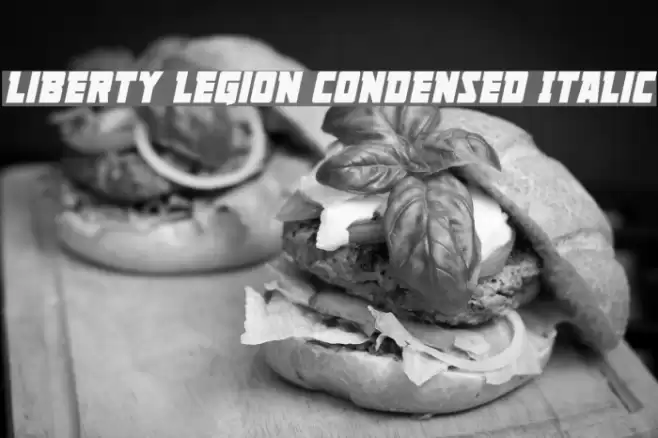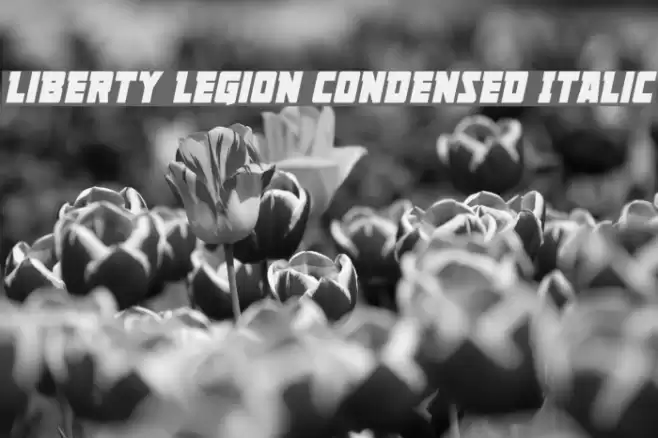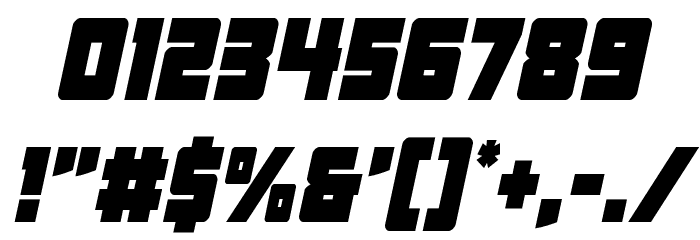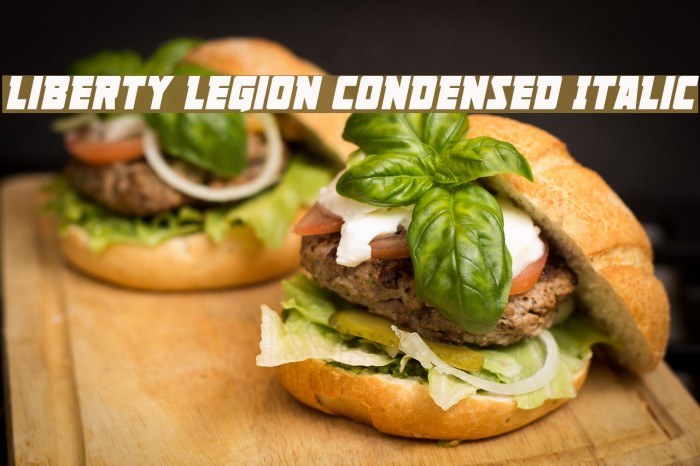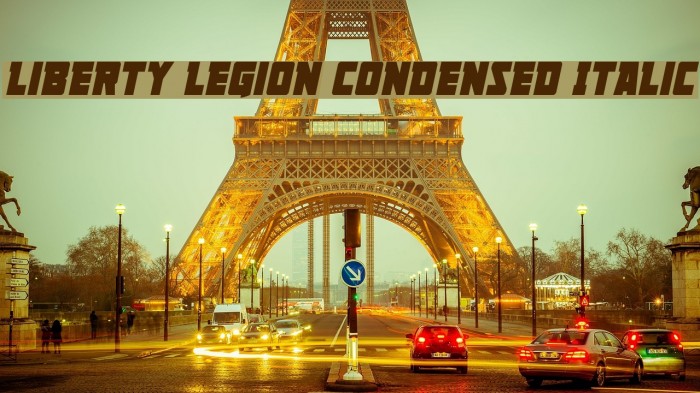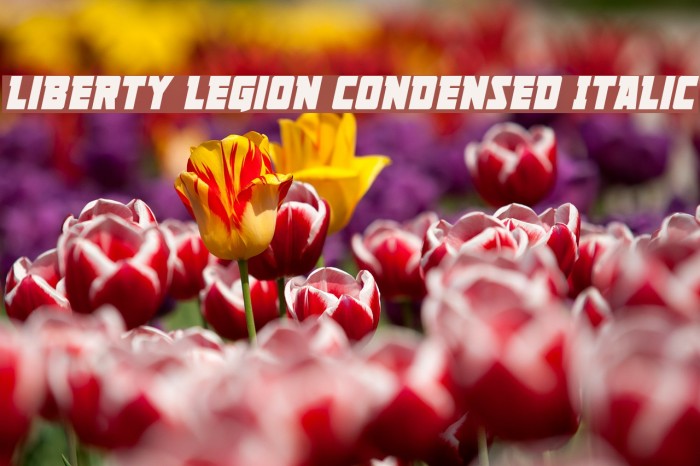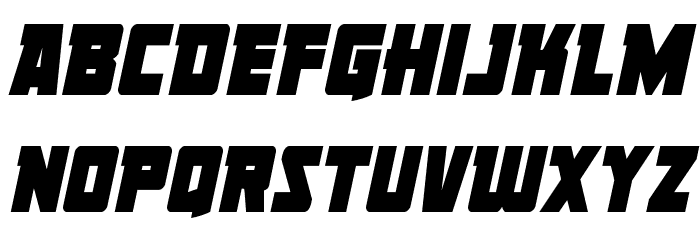
Liberty Legion Condensed Italic Font
Liberty Legion Condensed Italic Description
This font features a bold, condensed style with a strong italic slant, giving it a dynamic and energetic appearance. The characters are tightly spaced, enhancing the compact look. The strokes are thick and consistent, providing a high contrast that makes the text stand out. Its angular design and sharp edges contribute to a modern and assertive feel, making it suitable for impactful headlines and attention-grabbing designs. The uppercase and lowercase letters maintain a uniform width, ensuring a cohesive visual flow. The numerals and special characters are designed to match the boldness and style of the alphabet, offering a complete and versatile typeface.
A bold, condensed italic font with high contrast and dynamic style from Uncategorized fonts.
- Proposed Projects: Ideal for sports branding, action movie posters, dynamic advertisements, and bold headlines.
- Character Spacing: Tight